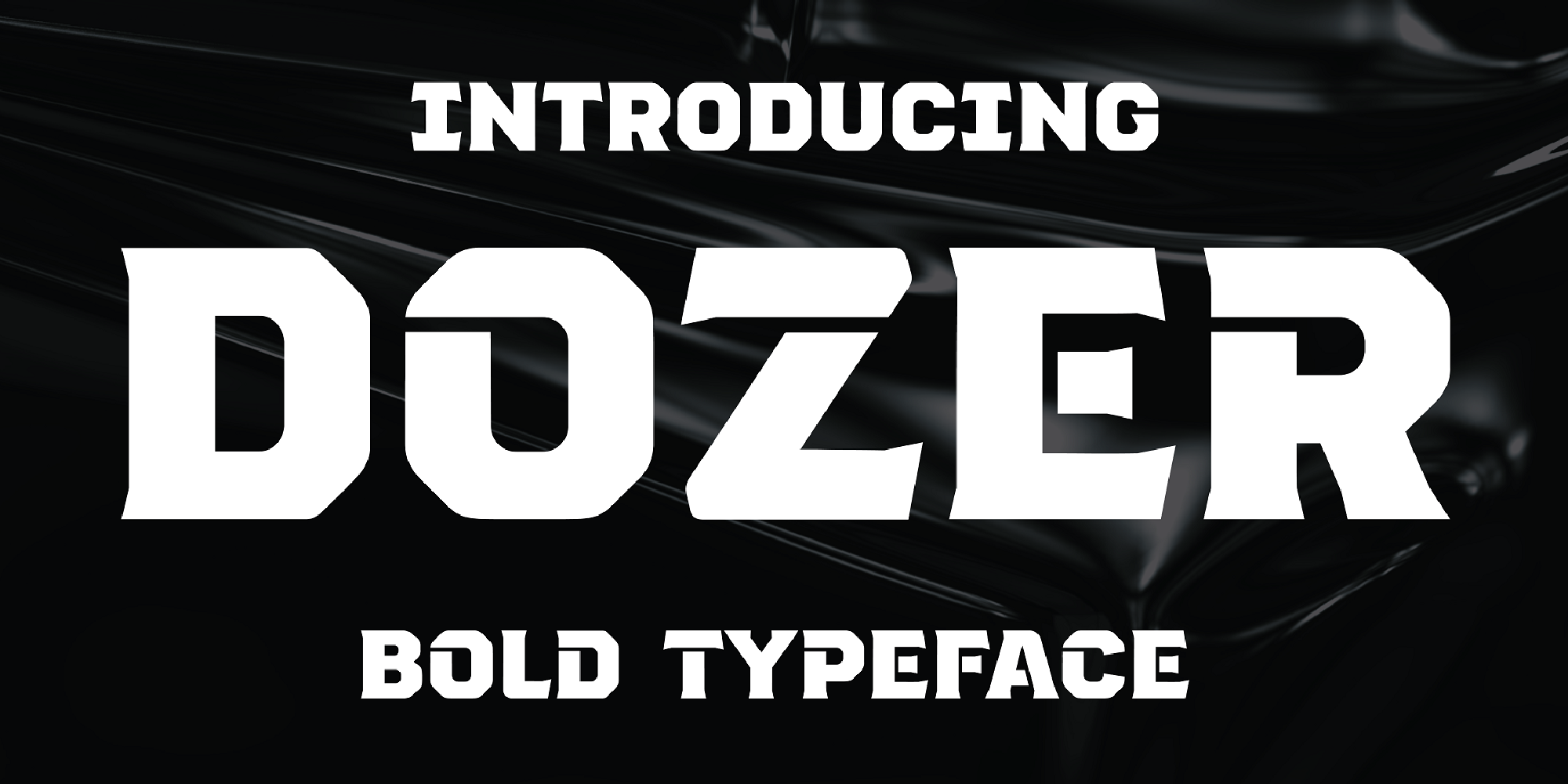
The Dozer Font is perfect for construction company logos, industrial branding projects, heavy machinery advertisements, automotive magazines, sports team graphics, action movie posters, military-themed designs, and rugged outdoor gear packaging. This powerful typeface excels in applications where strength and durability need to be communicated instantly, making it ideal for both digital displays and print materials that require bold, impactful typography.
What makes Dozer Font exciting is its raw industrial power and uncompromising boldness that commands respect and attention. The font's robust letterforms and heavy-duty construction mirror the strength of construction equipment, creating an atmosphere of reliability and toughness. Its aggressive character design and substantial weight make it perfect for brands that want to convey durability, power, and no-nonsense professionalism in their visual communications.
The Dozer Font family typically includes multiple weights from bold to ultra-heavy, often featuring condensed versions, stencil cuts, and distressed effects that enhance its industrial aesthetic. Many versions include specialized characters, technical symbols, and alternate letterforms that provide additional creative possibilities for construction and industrial design projects.
For designers working on projects that demand masculine strength and industrial credibility, Dozer Font Free Download delivers exceptional impact. Its ability to instantly communicate power and reliability makes it an essential choice for construction companies, industrial brands, and any project requiring typography that embodies strength, durability, and unwavering determination.